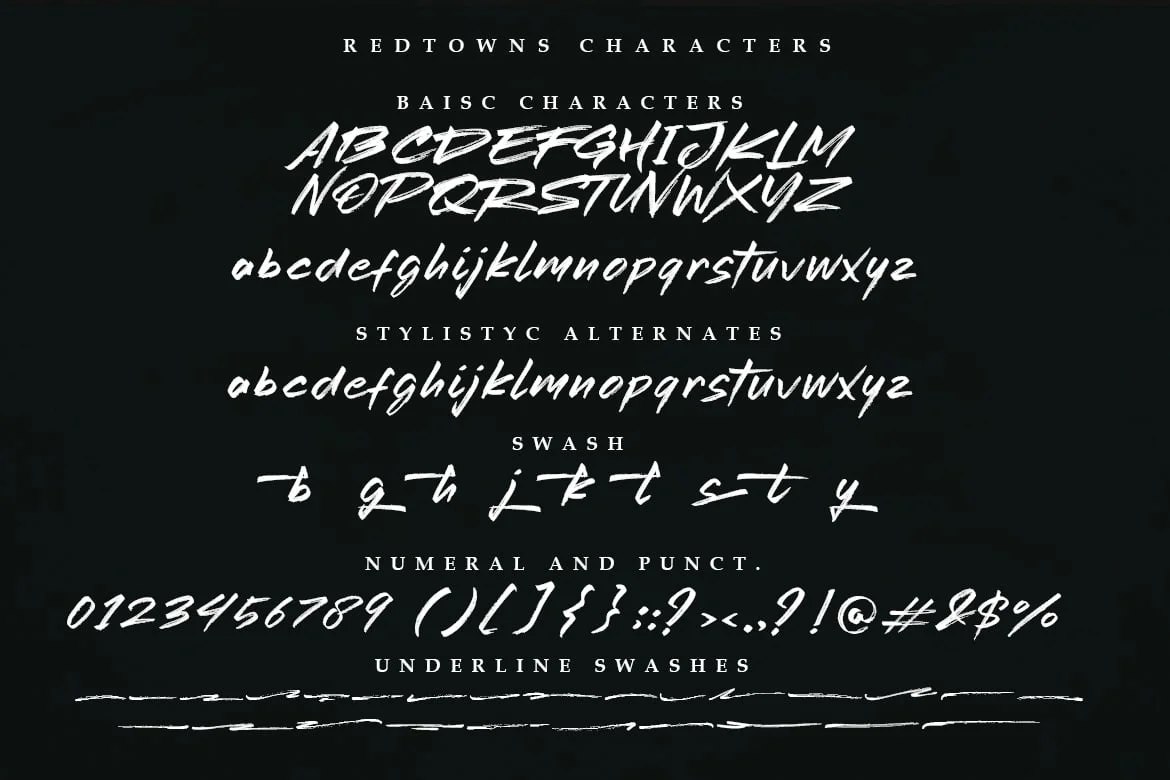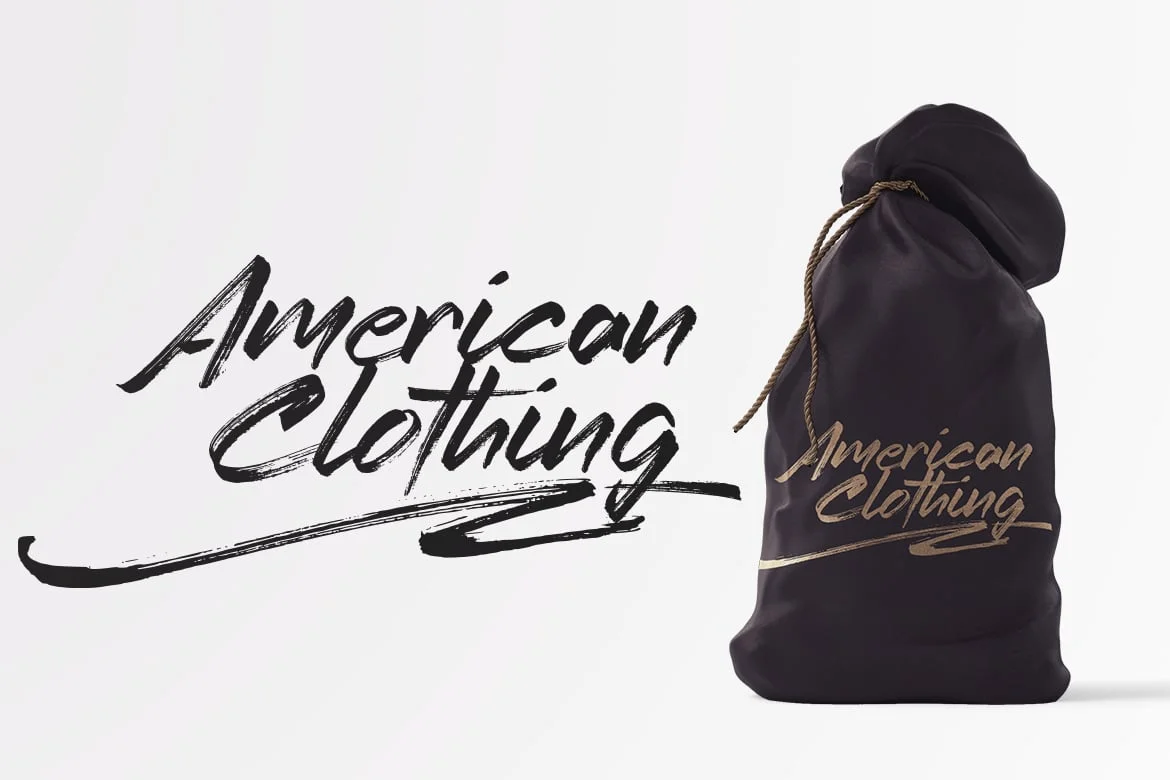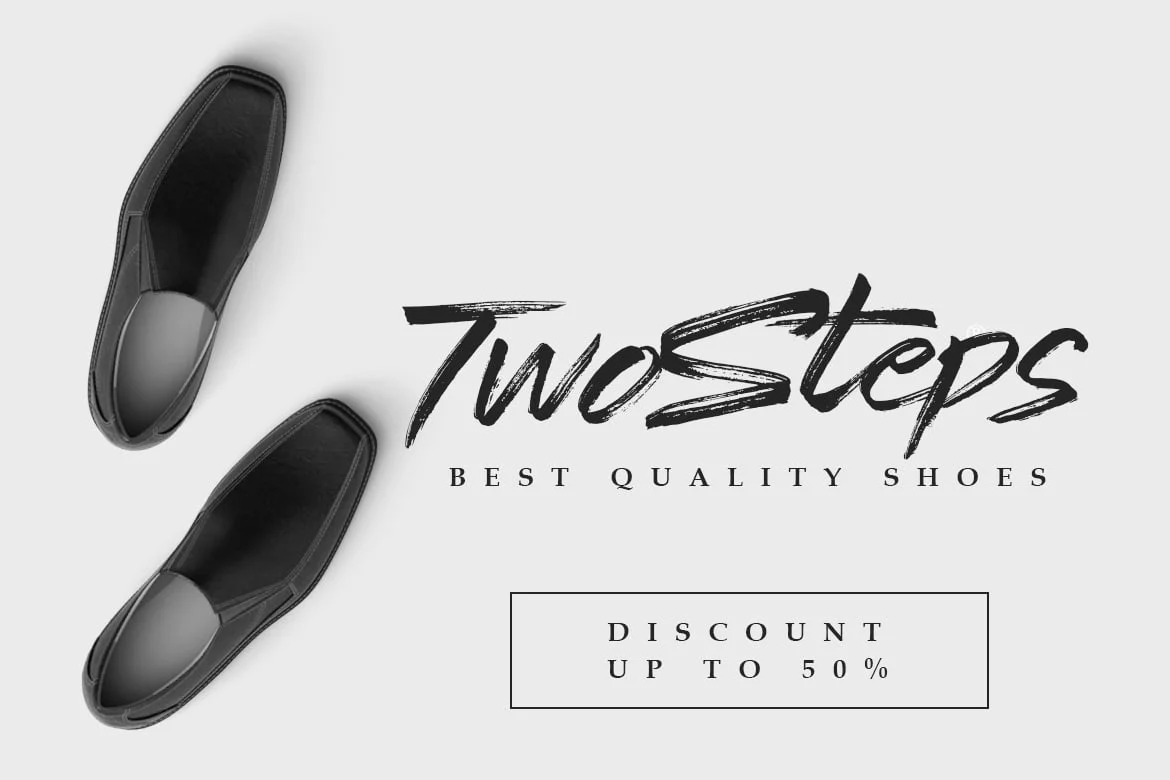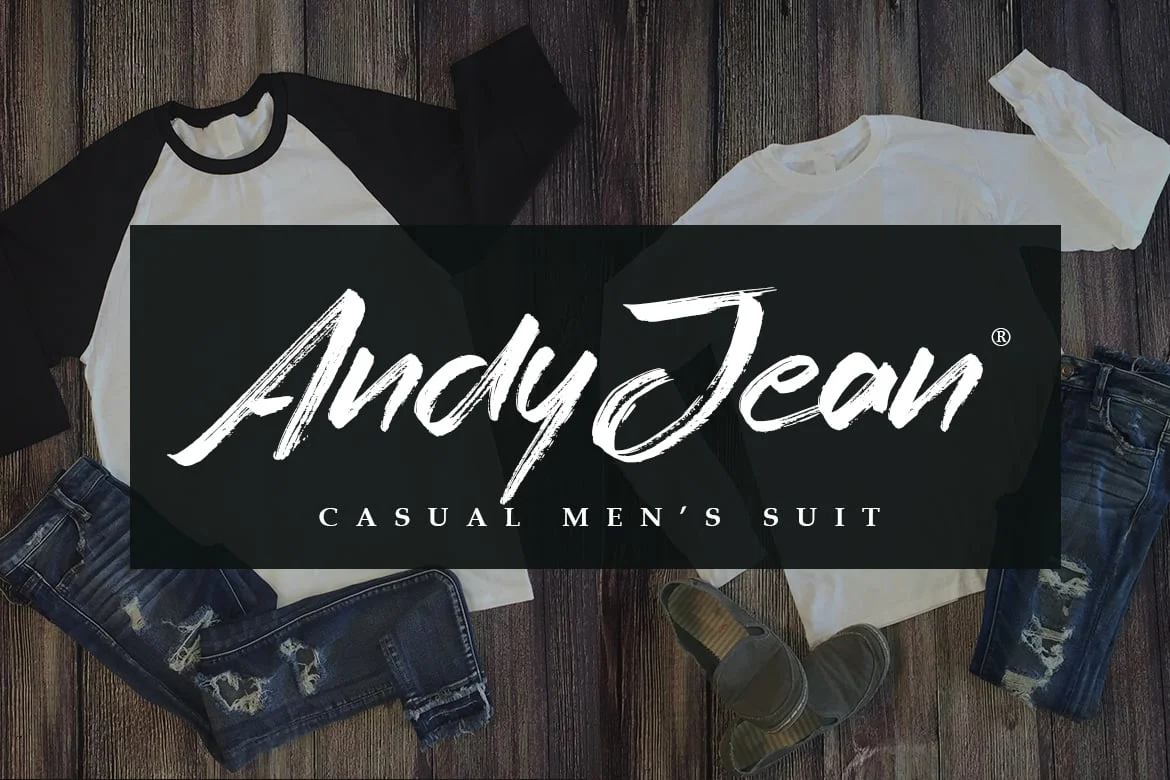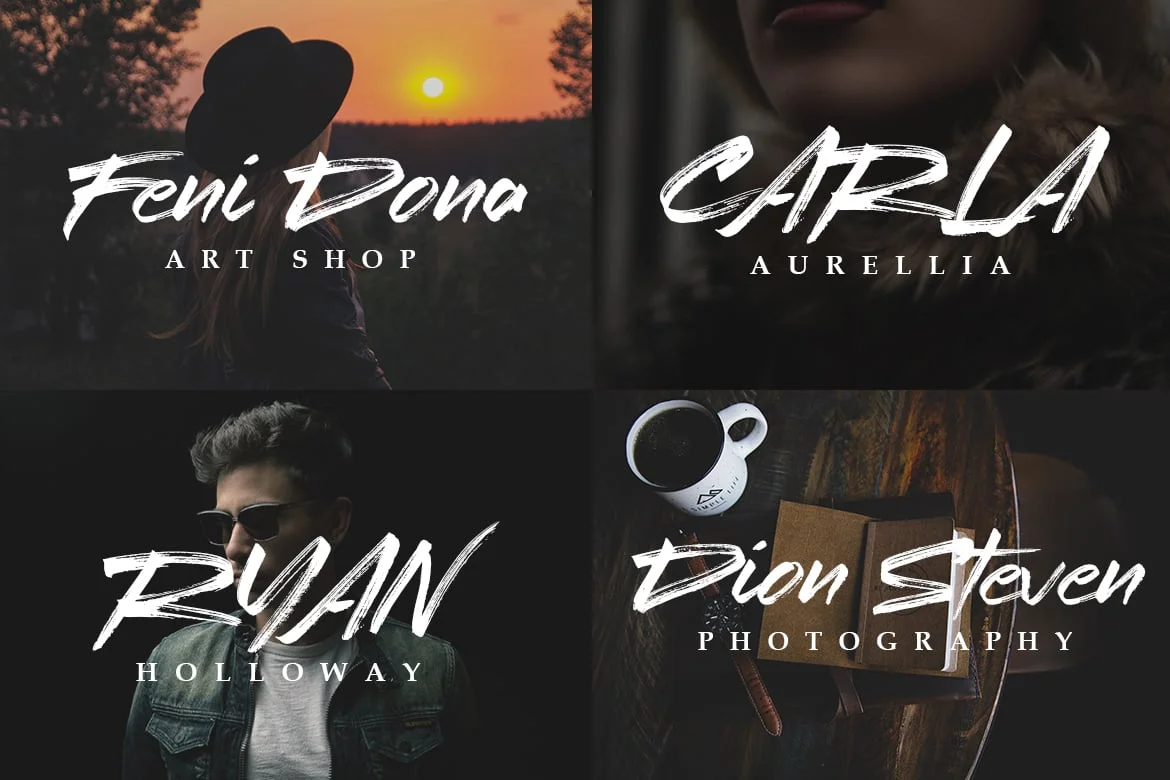
Redtown Font
When a design brief calls for both strong typographic hierarchy support and immediate visual impact, type choices matter — Redtown answers that brief. The typeface brings an elegant, calligraphic sensibility to a broad range of creative disciplines, with optical balance across all weights that holds up whether the work is print-first or screen-first.
In practice, Redtown proves particularly effective for greeting cards, event signage, wedding invitations, packaging design, advertising campaigns. Designers reaching for it find that the type decisions feel resolved rather than laboured — a useful quality when client timelines are tight.
The range of applications extends to feminine branding, environmental graphics, web design, boutique logos. That breadth is deliberate: the proportions and spacing were stress-tested across a wide range of mock briefs before the typeface was finalised.
Ascenders and descenders are drawn with generous extents that give the script its characteristic rhythm. Ligature pairs have been individually tested to prevent collisions, and the baseline is slightly bounced to suggest a natural, unhurried hand.
Pairing Redtown with a contrasting serif or a neutral grotesque gives mixed-format layouts a clear visual grammar without requiring constant size adjustments to establish hierarchy.
Independent studios handling packaging and editorial work find Redtown a reliable choice for projects that demand both personality and restraint. The design avoids the self-conscious quirkiness that dates quickly, settling instead for considered distinctiveness that holds up over time.